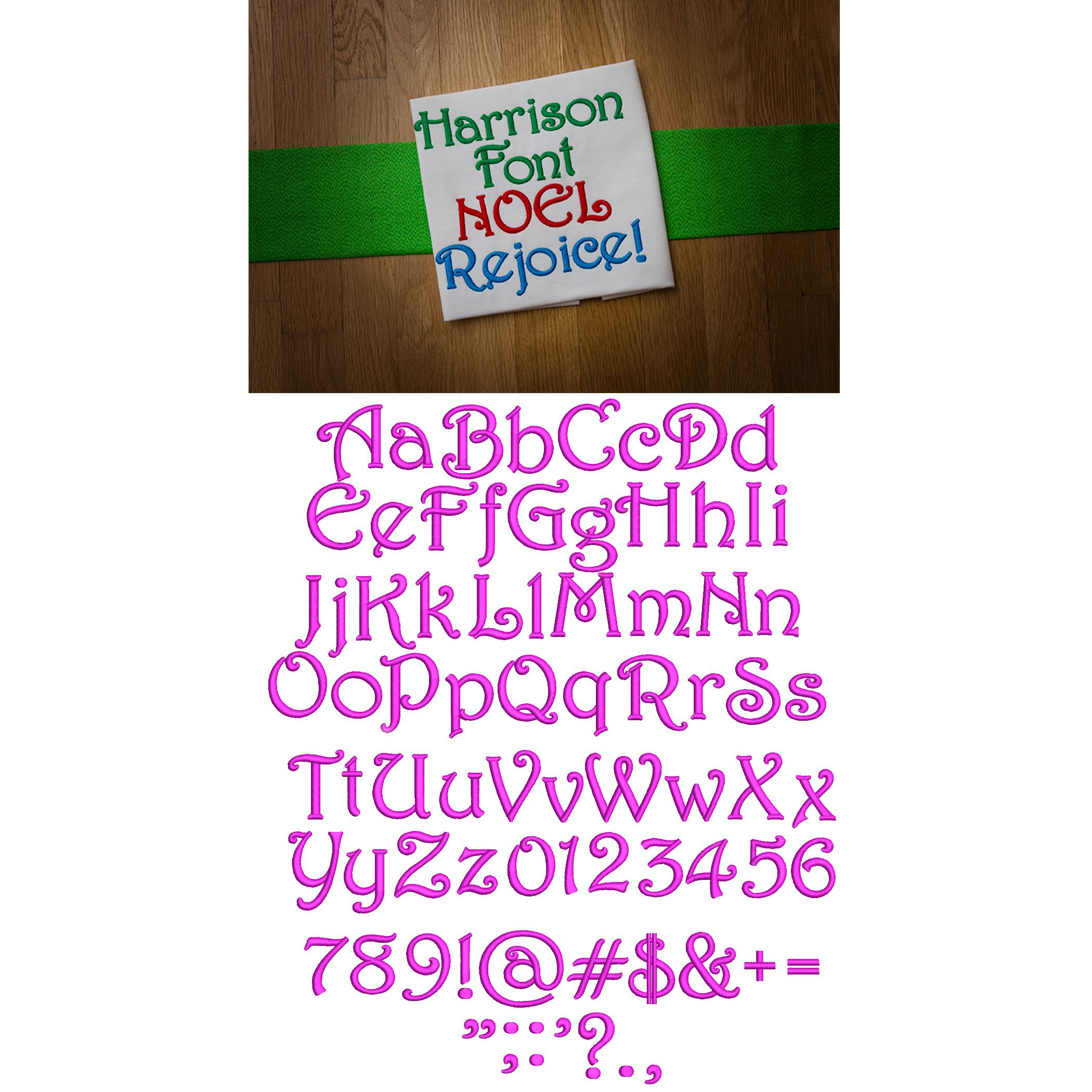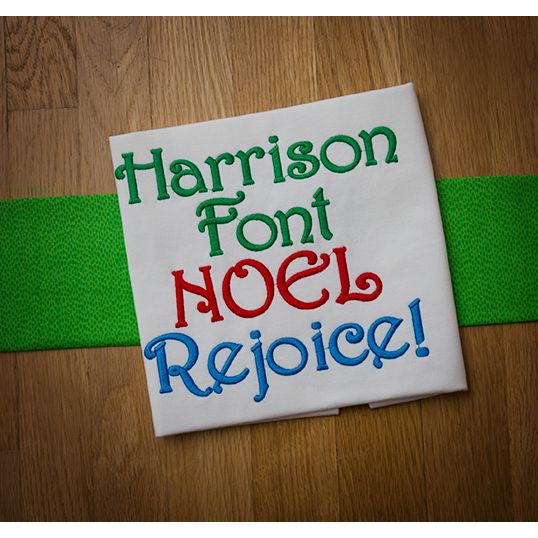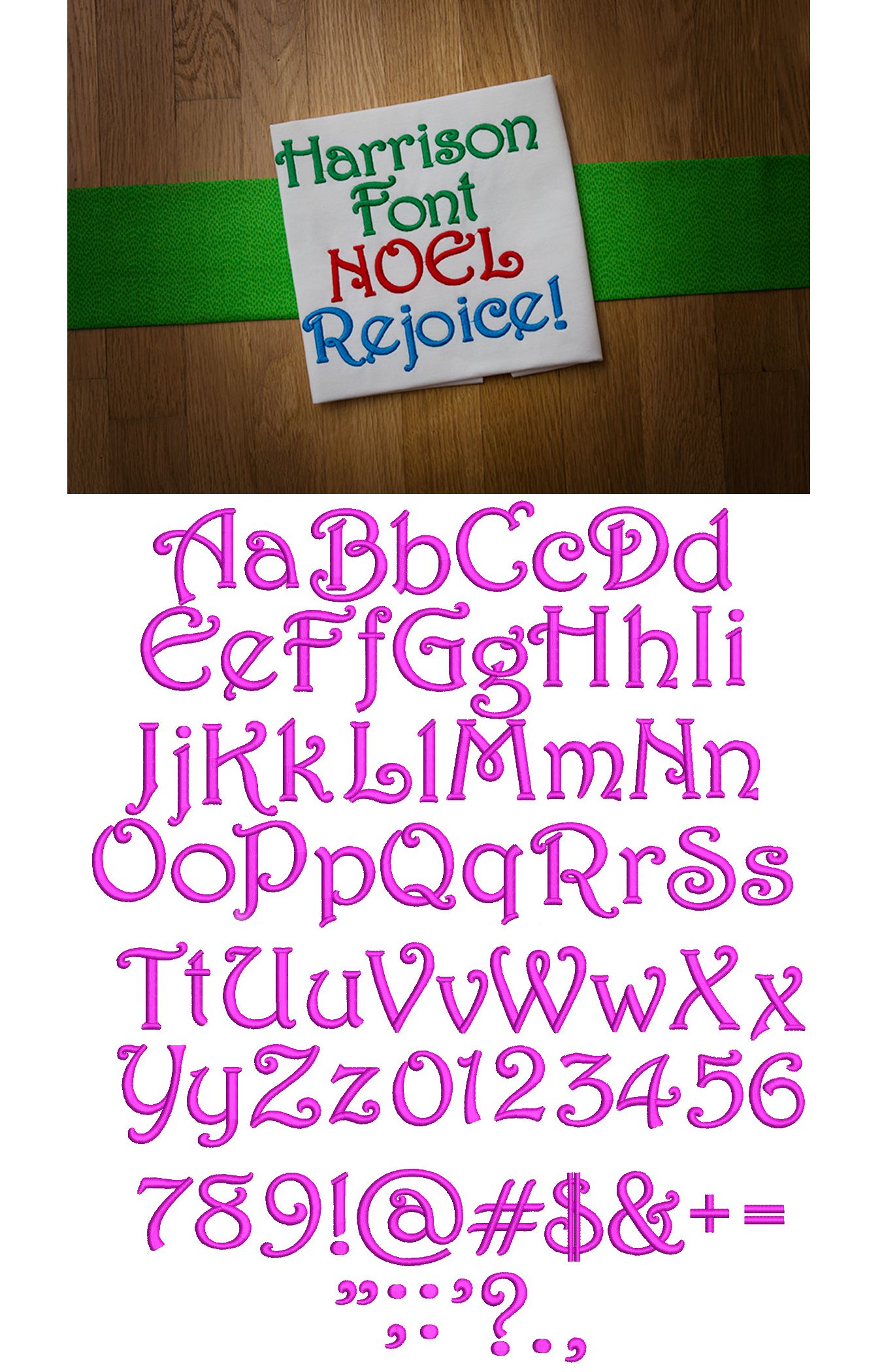
Harrison Satin Stitch Embroidery Font
A beautiful and elegant font..great for holiday projects!  All of our fonts are 100% manually digitized to ensure the highest quality.